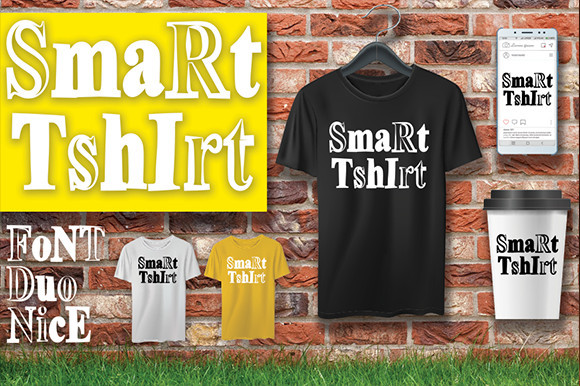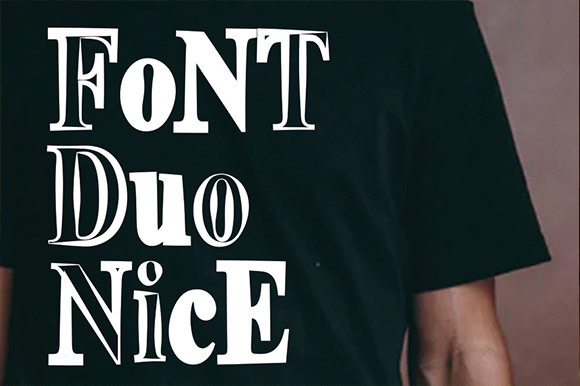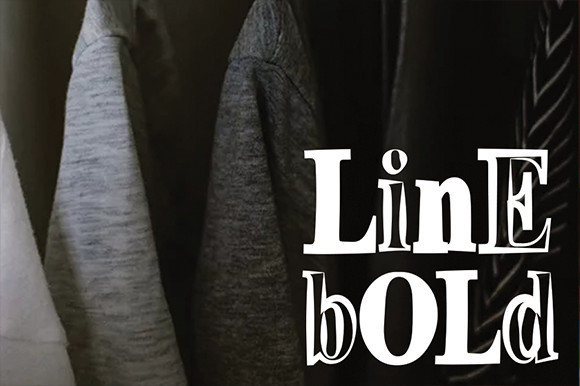
SmaRtTshIrt Font
SmaRtTshIrt embodies fun, quirkiness and authenticity. This enchanting display font will turn any creative idea into a true standout.